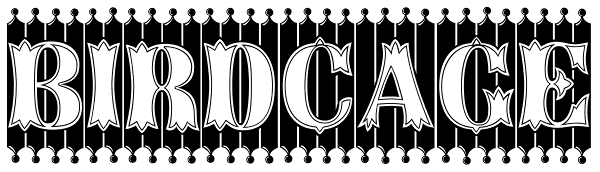
Birdcage
Birdcage was designed from a very short lettering sample in Rob Roy Kelly's American Wood Type book, from the image I created a complete font plus a regular version with lowercase. In the past banner style fonts would limit you to a monospaced look...
Birdcage
Birdcage Theatre